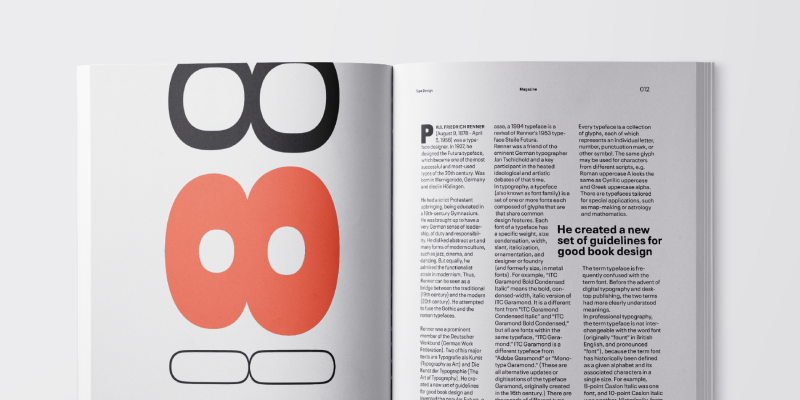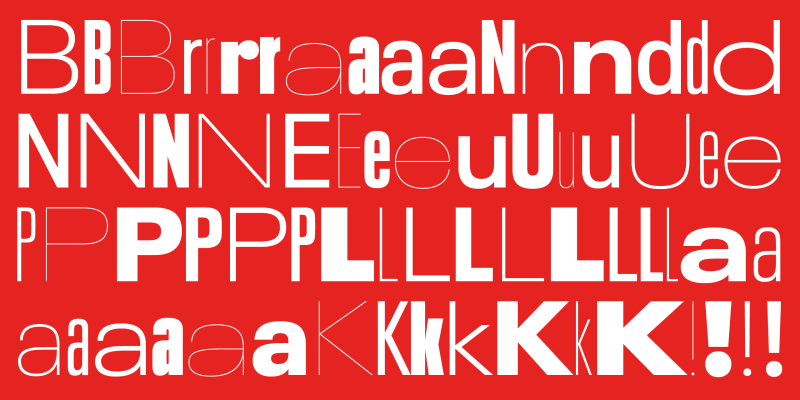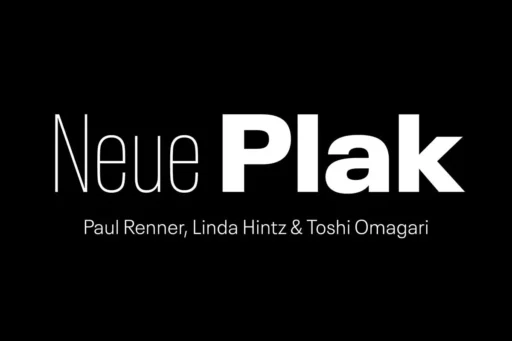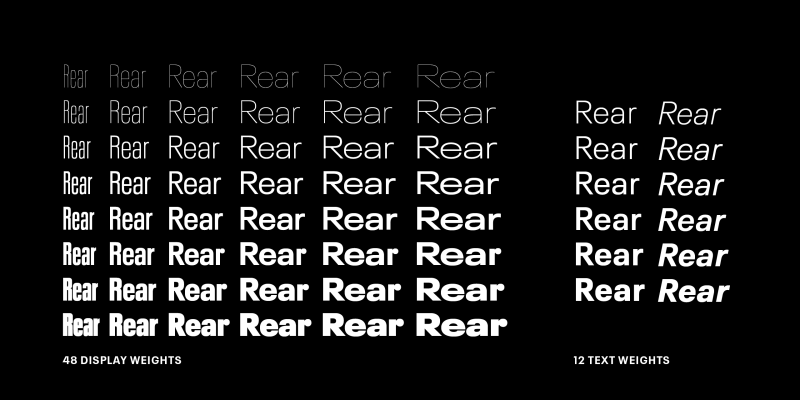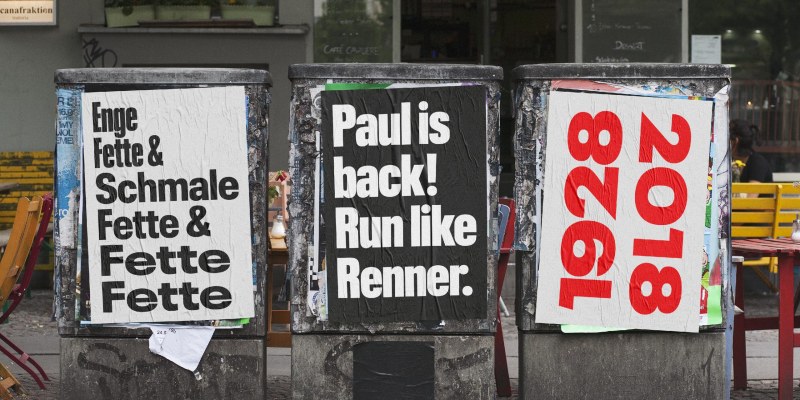
Neue Plak Font
Neue Plak Font is the modern variation of the Plak typeface designed by the famous German type designer, Paul Renner. Renner is famous for his work on Futura and Neue Plak continues this masterpiece while adding a new dimension to the less famous typeface by Renner.
Paul Renner first developed the Plak typeface in the 1920s, when there was a lot of innovation and transformation in the graphic arts. This period witnessed the emergence of the Bauhaus movement, which entailed the adoption of functionalism and geometric shapes. Renner’s Plak was also part of this period, but it was different in having a more massive black design and a slightly condensed structure that made it ideal for advertising or posters.
Although Plak became popular with the passage of time, it lost its steam over the course of time, and the more geometric and easily identifiable Futura of Renner gained more prominence. However, due to certain qualities that were inherent in Plak, it became an ideal choice to be brought back in the digital age.
Monotype, a leading type design and font technology company, was behind the Neue Plak revival. It was not a mere exercise in digitization of Plak, but to adapt it for use in the current world yet keeping the essence of what Renner had created. This entailed a thorough literature review of historical literature and a close reading of the texts by Renner.
Neue Plak offers the same strong impact as the first version but with a set of new weights and styles, which make it more flexible. The font family extended with additional weights from Thin to the Black, with matched italics. This expansion makes Neue Plak suitable for a wide range of applications, from headlines and posters all the way to the text of editorial design.
Neue Plak is notable for its strong and slightly eccentric lettering. This makes the strokes of the font thick and strong, making the font look dominant. Its slightly condensed width makes it space-efficient yet does not affect its readability. The slight condensation on its width does not affect the space occupied while maintaining readability. The contemporary design has been optimized to guarantee better readability in the context of the digital era, which has become the primary arena for the distribution of information.
Of all the characteristics that define Neue Plak, probably the most noteworthy is the way it treats curves and terminals. The rounded characters give a feeling of friendliness, which is quite opposite to the overall aggressiveness of the logo. Thus, Neue Plak is an interesting and versatile font that you can use to convey powerful and bold messages without compromising the overall character.
It has become popular among designers in different disciplines after its release. That is why it is suitable for branding, advertising, websites and editorials. The text in the bold weights looks very convincing for headlines and logos, while the lighter weights can be useful for more extended texts.
Those who want to incorporate a contemporary feel with a touch of historical art styles find Neue Plak useful. It is bold enough to catch the eye but not so much that it becomes distracting and difficult to read.
Avenir: Avenir is a sans-serif typeface by Adrian Frutiger with a geometrical look and feel that is at the same time contemporary and timeless.
Gotham: This is a modern font based on architectural lettering, giving a sleek and minimalistic feel.
Proxima Nova: Featuring clean, geometric shapes and contemporary proportions, Proxima Nova is a popular sans-serif font that works well for both print and web.
Nexa: The design of this font is clean and minimalistic, sans-serif with geometric construction suitable for application in various fields.
Neue Plak is a modern adaptation of the Plak typeface by Paul Renner in 1920s. It maintains the strong, sturdy look of the original, but provides new weights and styles for contemporary purposes.
It is designed by Paul Renner; a German typographer who also created the famous Futura font.
It has a strong, heavy appearance, with rather squarish shapes, slightly condensed letterforms, and some elegance in the curves and terminations. It is bold and nuanced at the same time, which gives it a kind of authority and friendliness all at once.